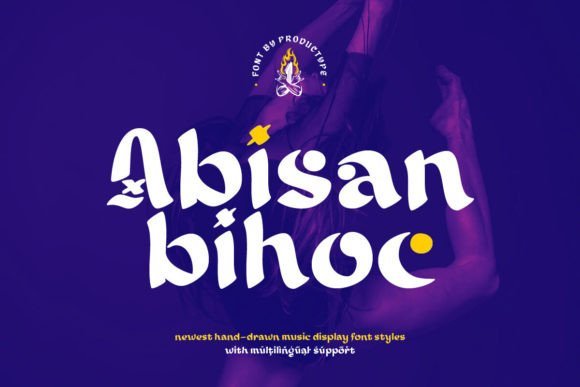
The Perfect Harmony for Your Next Design Project
Have you ever found yourself lost in the rhythm of a song, letting the melody transport you to a world of creativity? That’s exactly the kind of feeling you can evoke in your audience with the right design elements. As designers, we’re always on the lookout for that special something that sets our projects apart from the rest.
That’s where the Abisan Bihoc Font comes in – a display font specifically crafted to create immersive musical atmospheres. With its unique characters and inspired design, this font is the perfect choice for designers looking to add a musical touch to their projects. Whether you’re working on an album cover, concert poster, or music promotional material, Abisan Bihoc Font provides a valuable tool to convey the spirit of the music and leave a lasting impression on your audience.
Abisan Bihoc Font Key Features
- Font Family: Abisan Bihoc
- Character Set: Supports Latin, Cyrillic, and Greek alphabets
- Unique Characteristics: Unique letterforms and ligatures, designed to mimic handwritten script
Abisan Bihoc Font Review
Overall, I found the Abisan Bihoc font to be quite versatile and visually appealing. It’s great for creating eye-catching headlines or titles ✨.
The font has a unique blend of modern and traditional elements, which can be quite interesting for certain design projects. Its varying line widths and subtle flair at the ends of the strokes give it a distinctive character that can add a lot of personality to a design ✨.
However, there are some limitations to consider ⚠️.
- It may not be the best choice for body text, as it can be quite difficult to read at smaller font sizes.
- The font’s complexity can sometimes make it difficult to pair well with other fonts, which can limit its versatility in certain design contexts.
- Some users may find the font’s unique flair at the ends of the strokes to be a bit distracting or over-the-top.
Despite these limitations, I think the Abisan Bihoc font is a great addition to any designer’s toolkit. It’s perfect for creating bold, eye-catching headlines and titles, and can add a lot of personality to a design ✨.
Abisan Bihoc Font is ideal for:
- Designing creative graphics and posters
- Creating visually appealing presentations and reports
- Adding a unique touch to digital documents and publications
Alternatives to Abisan Bihoc Font
Montserrat is a sans-serif font designed by Julieta Ulanovsky. It is a modern and clean font that works well for digital products and web design. Use Montserrat for headings and titles to create a strong visual impact. Compared to Abisan Bihoc Font, Montserrat is more geometric and has a more contemporary feel.
Lato is a sans-serif font designed by Łukasz Dziedzic. It is a highly legible font that works well for body text and headings. Use Lato for longer texts and articles to create a comfortable reading experience. Compared to Abisan Bihoc Font, Lato is more rounded and has a softer feel.
Open Sans is a sans-serif font designed by Steve Matteson. It is a clean and modern font that works well for digital products and web design. Use Open Sans for headings and titles to create a strong visual impact. Compared to Abisan Bihoc Font, Open Sans is more minimalist and has a more neutral feel.
Roboto is a sans-serif font designed by Christian Robertson. It is a clean and modern font that works well for digital products and web design. Use Roboto for headings and titles to create a strong visual impact. Compared to Abisan Bihoc Font, Roboto is more geometric and has a more industrial feel.
Q: What is the recommended line height and character spacing for Abisan Bihoc?
The recommended line height for Abisan Bihoc is 1.2-1.5 times the font size, while the recommended character spacing is 0.1-0.2 times the font size. These guidelines help maintain optimal readability and visual harmony in various design contexts.